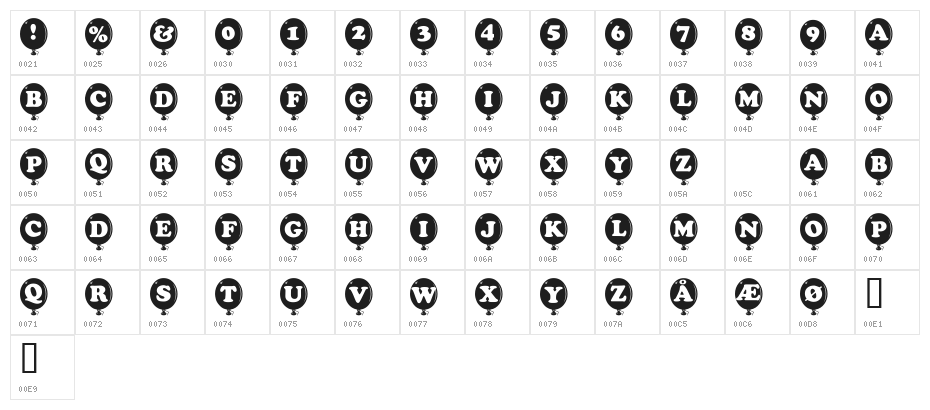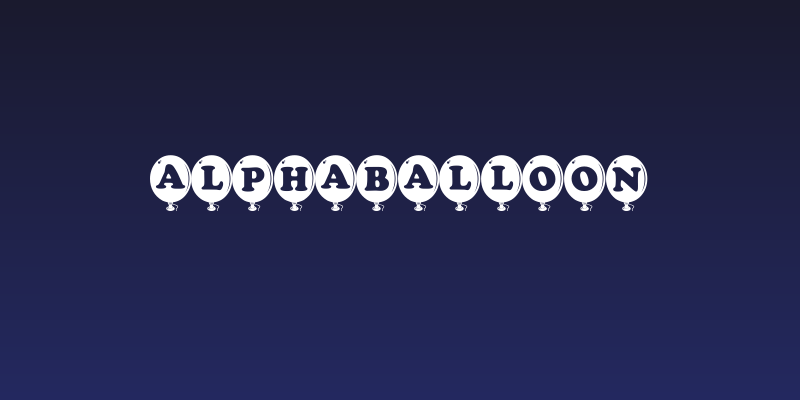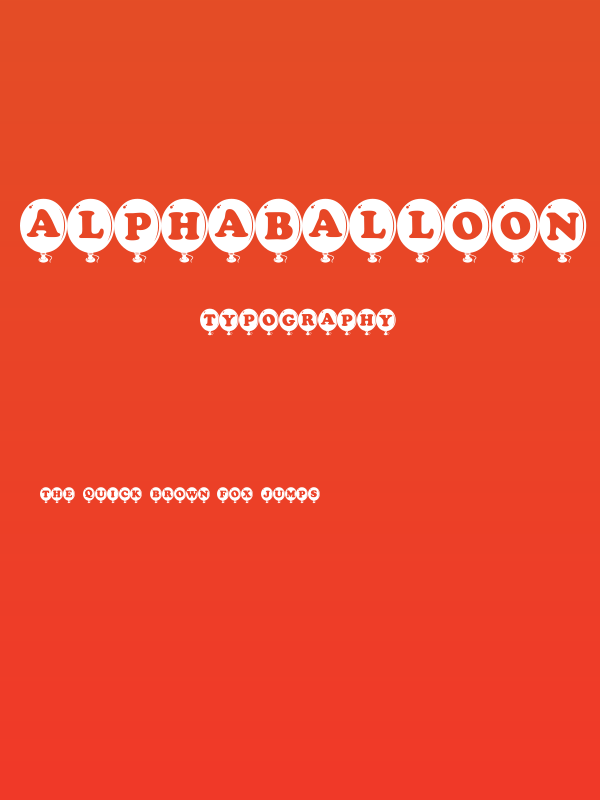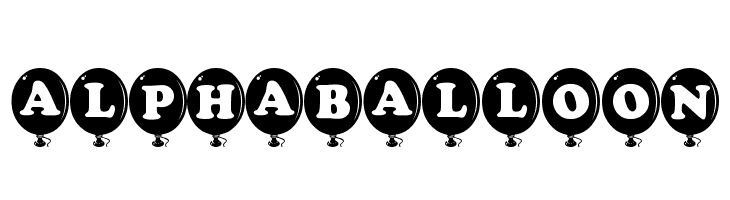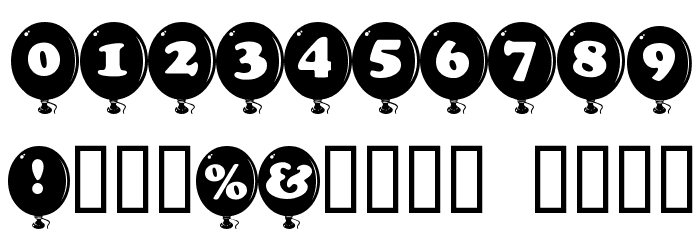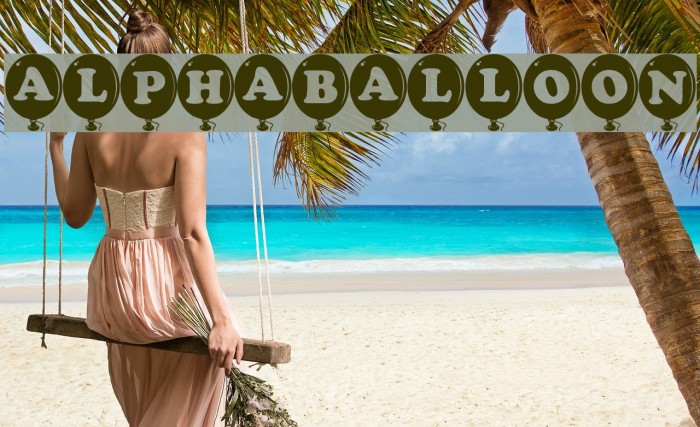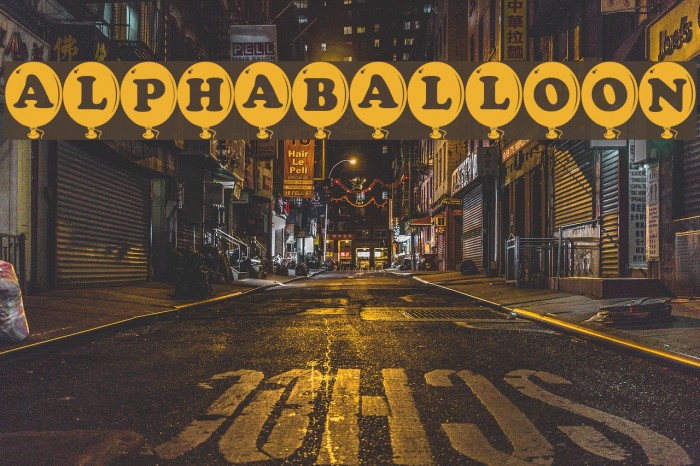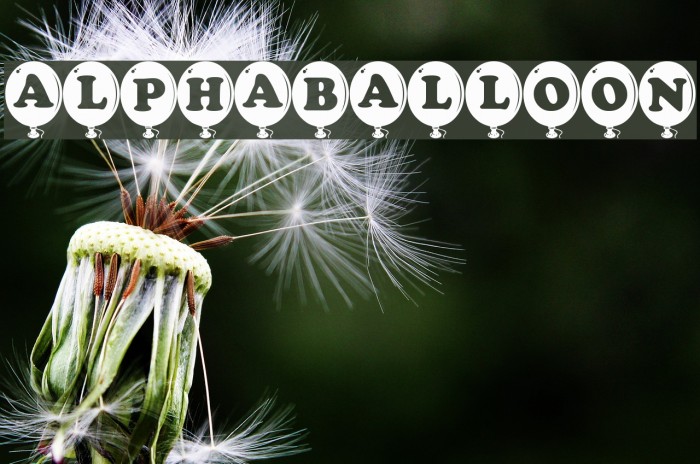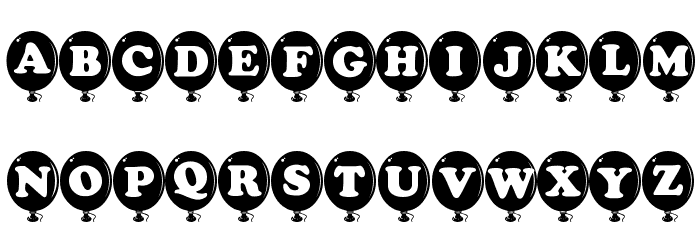
AlphaBalloon Font
AlphaBalloon Description
This playful and whimsical font features characters encapsulated within balloon shapes, creating a fun and festive appearance. The letters and numbers are bold and rounded, giving them a soft, approachable look. Each character is centered within a black balloon, complete with a small knot at the bottom, enhancing the celebratory theme. The font is highly decorative, making it ideal for projects that require a touch of joy and lightheartedness. The consistent use of balloon shapes across all characters ensures uniformity, while the boldness of the letters ensures readability even at smaller sizes. This font is perfect for children's parties, festive invitations, or any design that aims to convey a sense of fun and celebration.
| Proposed Projects | Ideal for children's party invitations, festive banners, playful greeting cards, and celebratory event posters. |